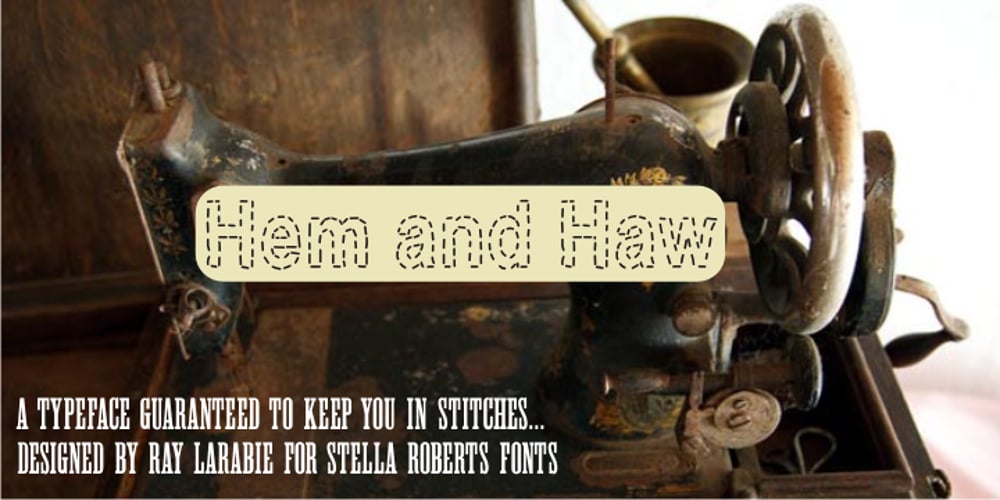
Hem And Haw SRF Font Family was designed by published by Stella Roberts Fonts. Hem And Haw SRF contains 1 styles and family package options. Hem and Haw SRF is another Ray Larabie original for Stella Roberts Fonts. Rebuilt from Ray’s former freeware design “Stitchen”, the lettering looks as if it were stitched into fabric. The font now is more complete with foreign characters and additional accents, punctuation and currency symbols. The net profits from my font sales help defer medical expenses for my siblings, who both suffer with Cystic Fibrosis and diabetes. Thank you.